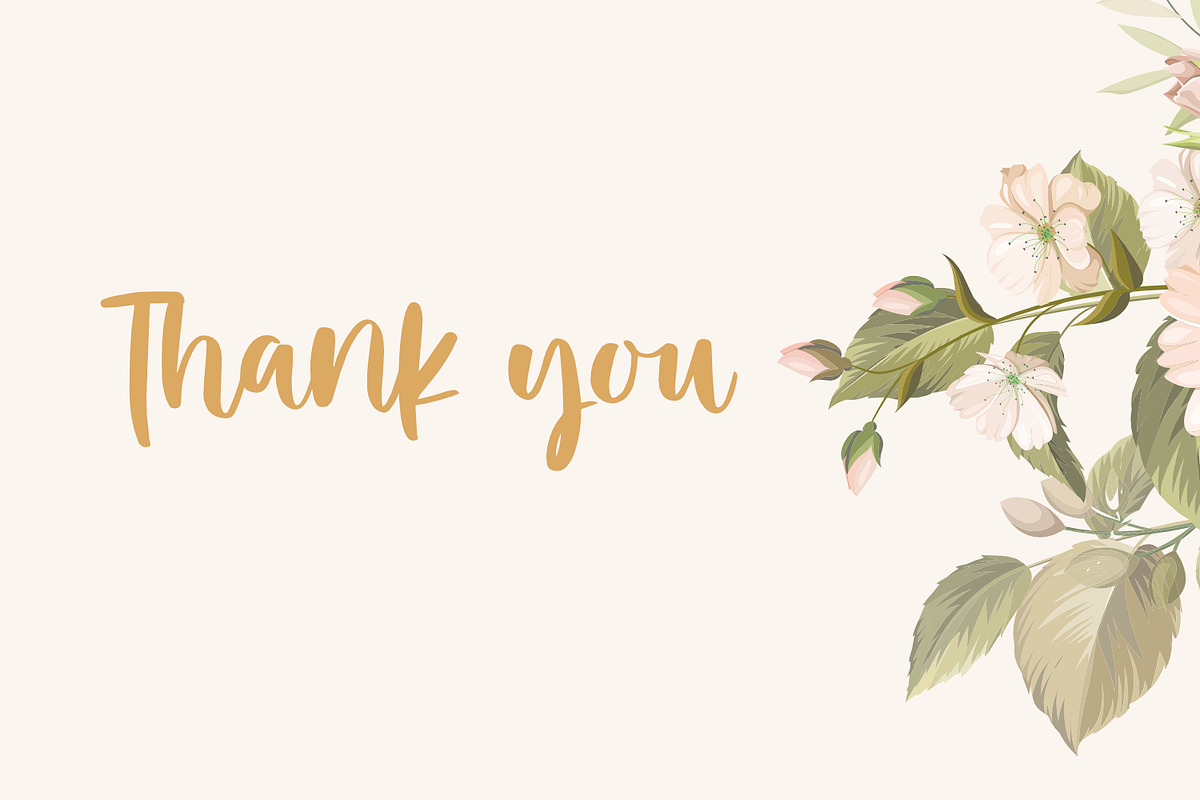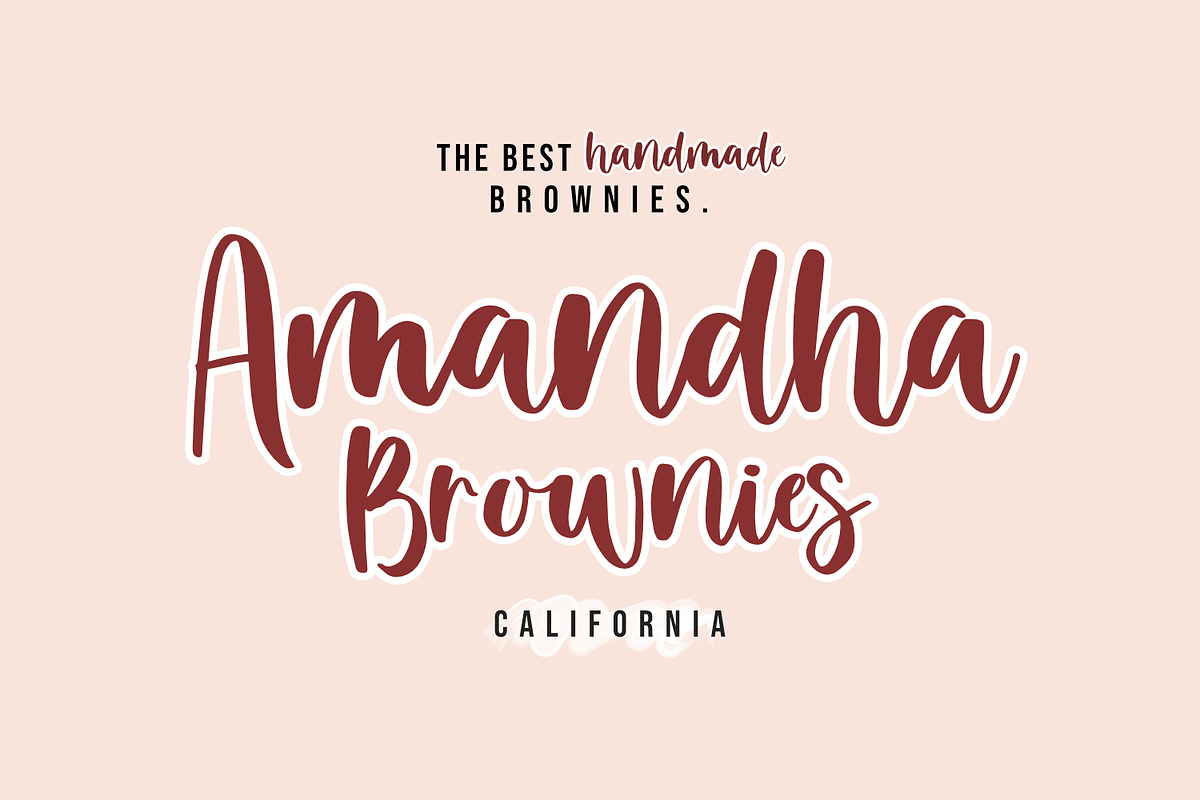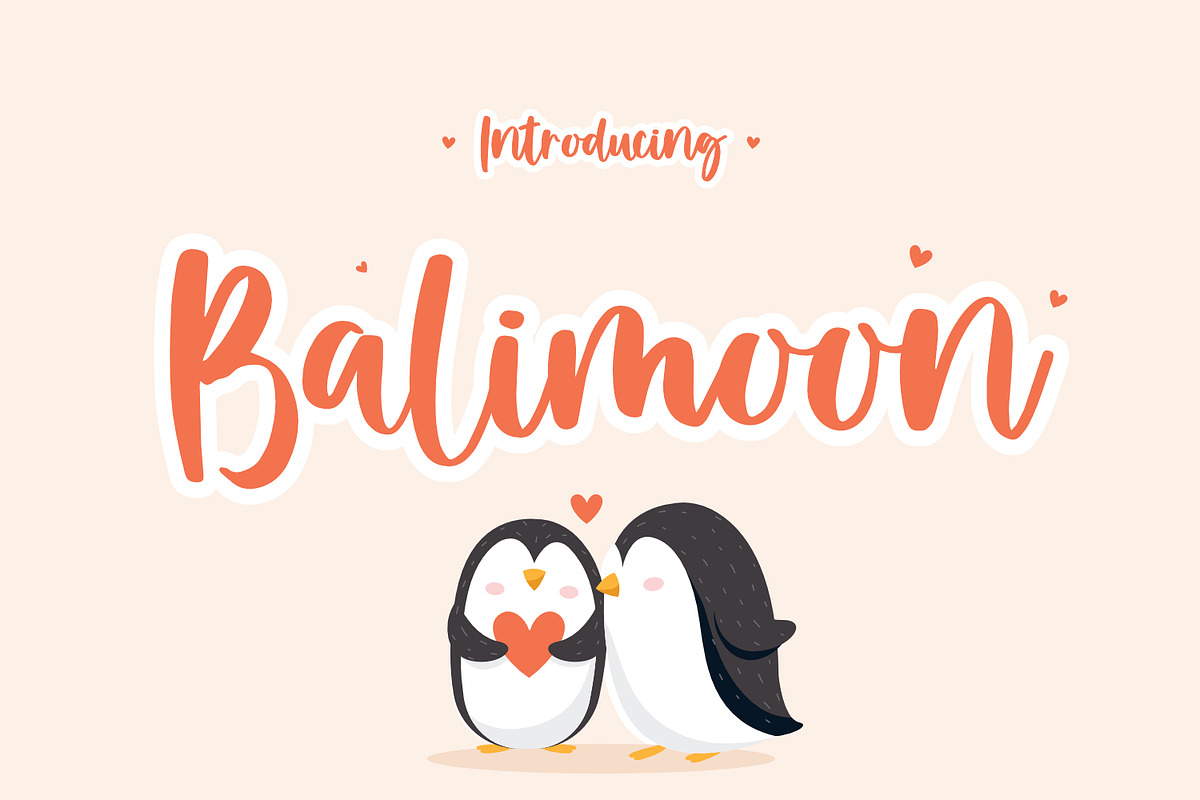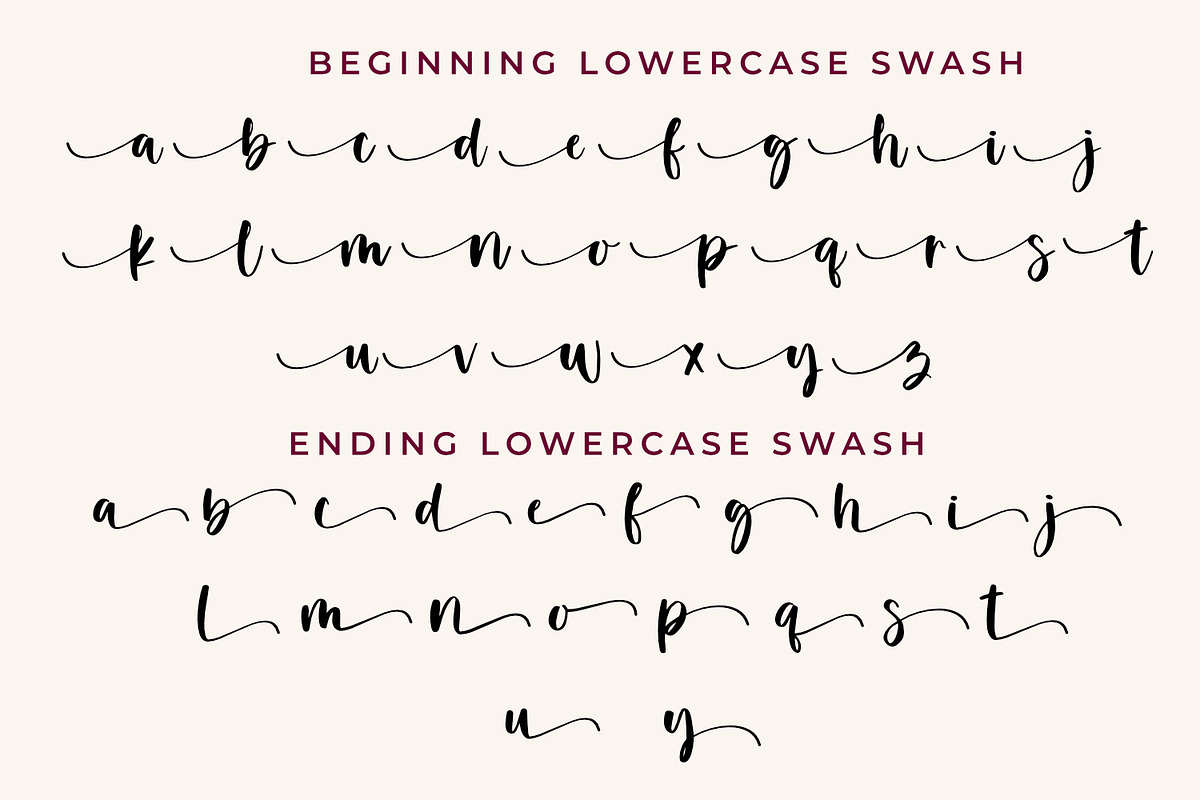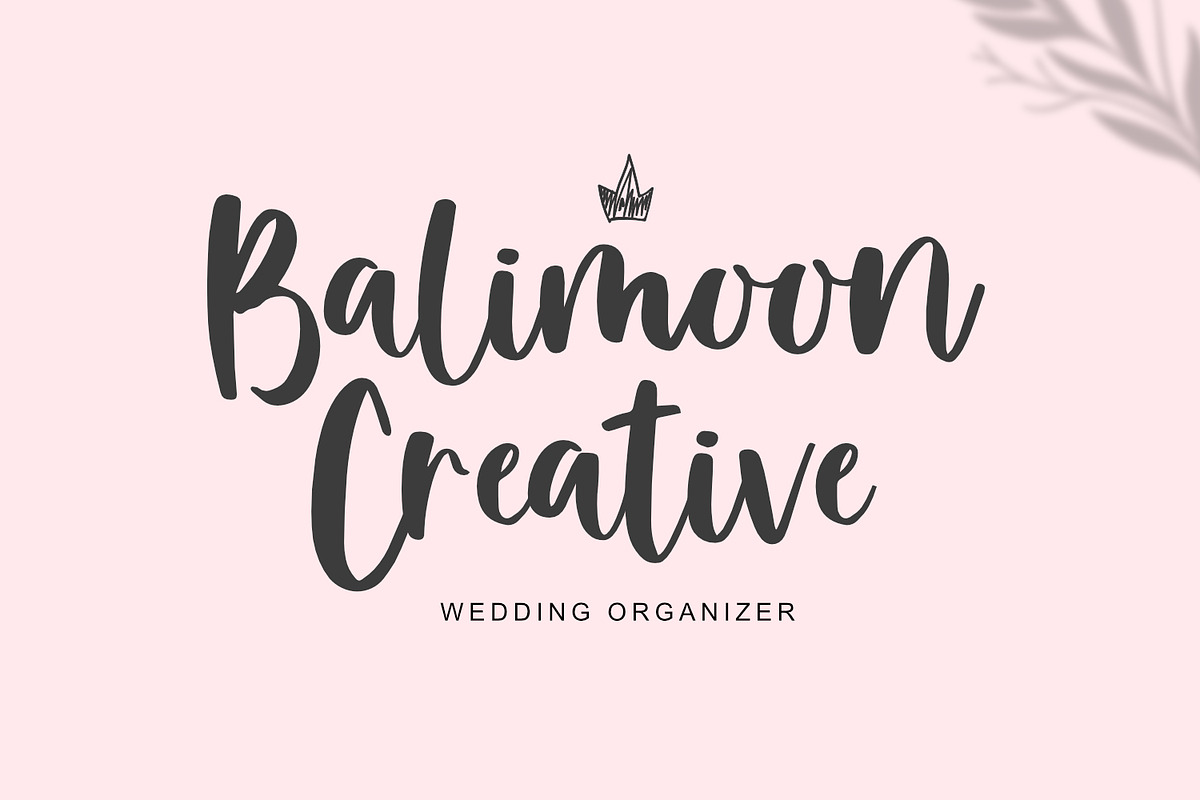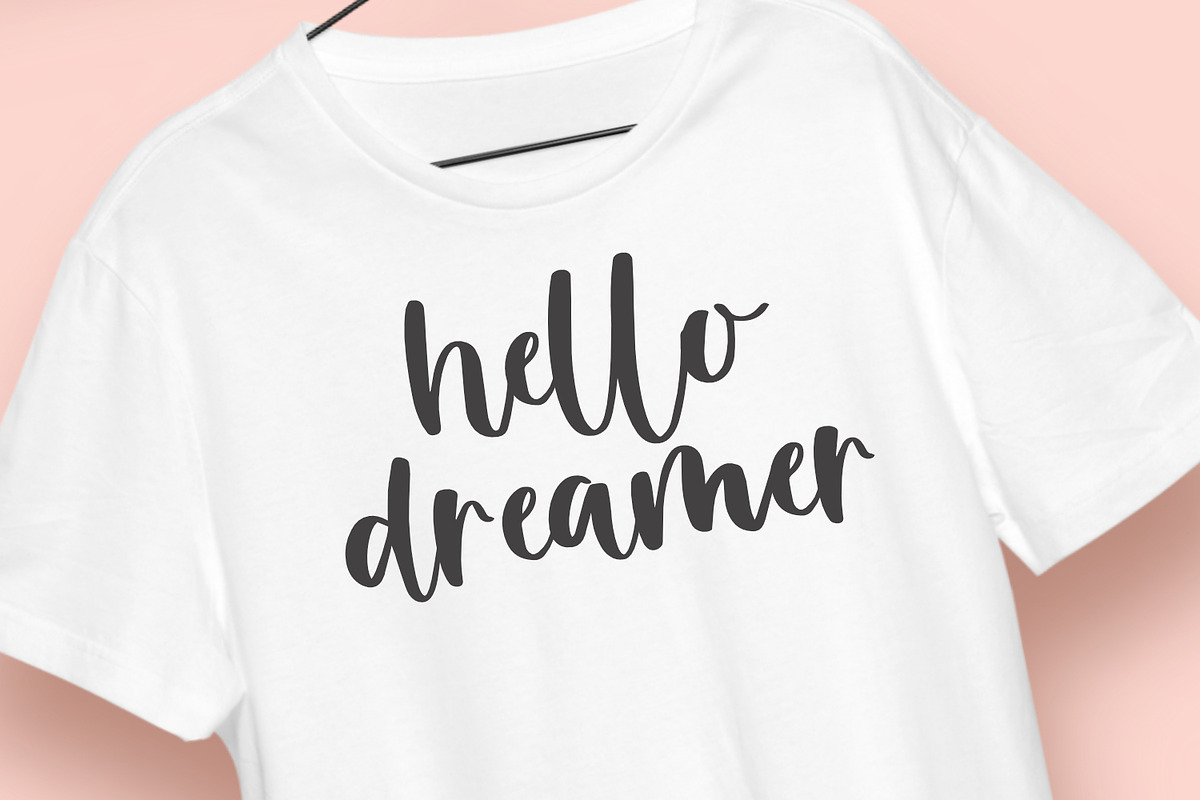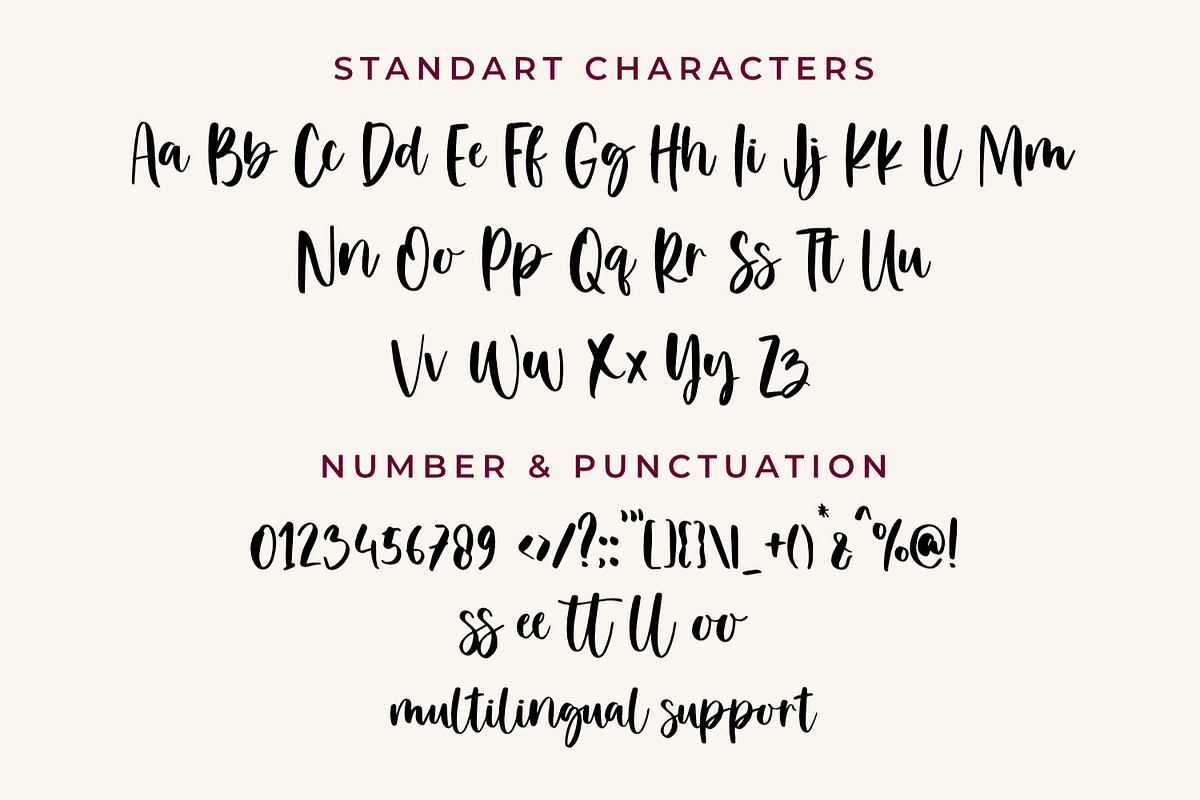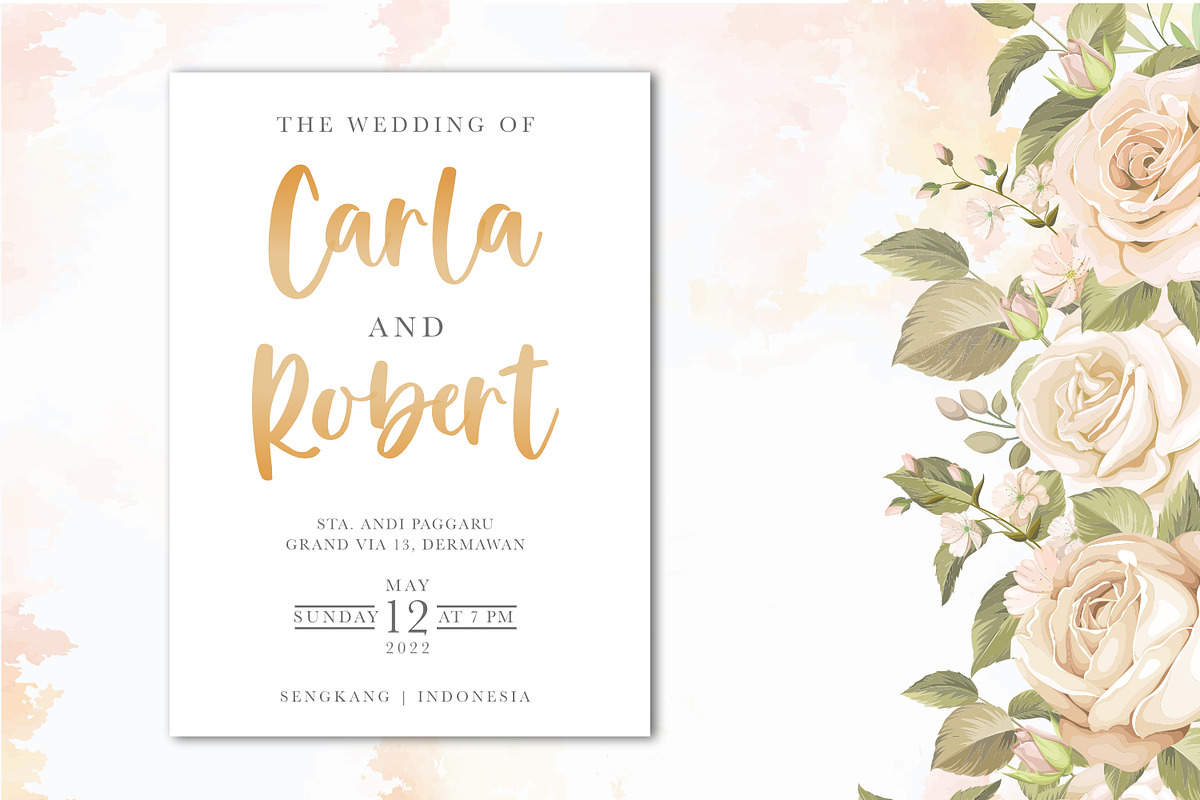
Balimoon
Balimoon is a cursive paint-brushed script font. It is defined by smooth curves and is perfect for fashion branding or editorial designs. Add it confidently to your projects, and you will love the results.
- Begin & End Swashes
- Multilingual Support ( Support 90 Languages)